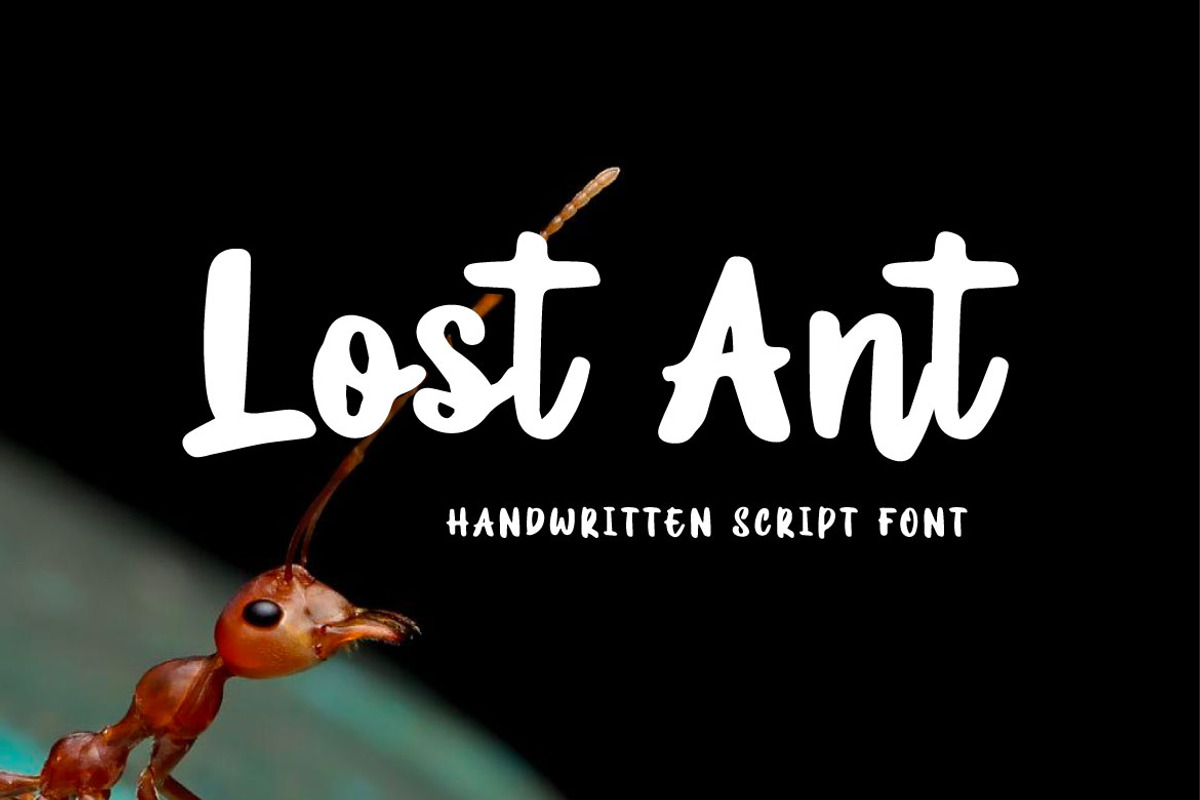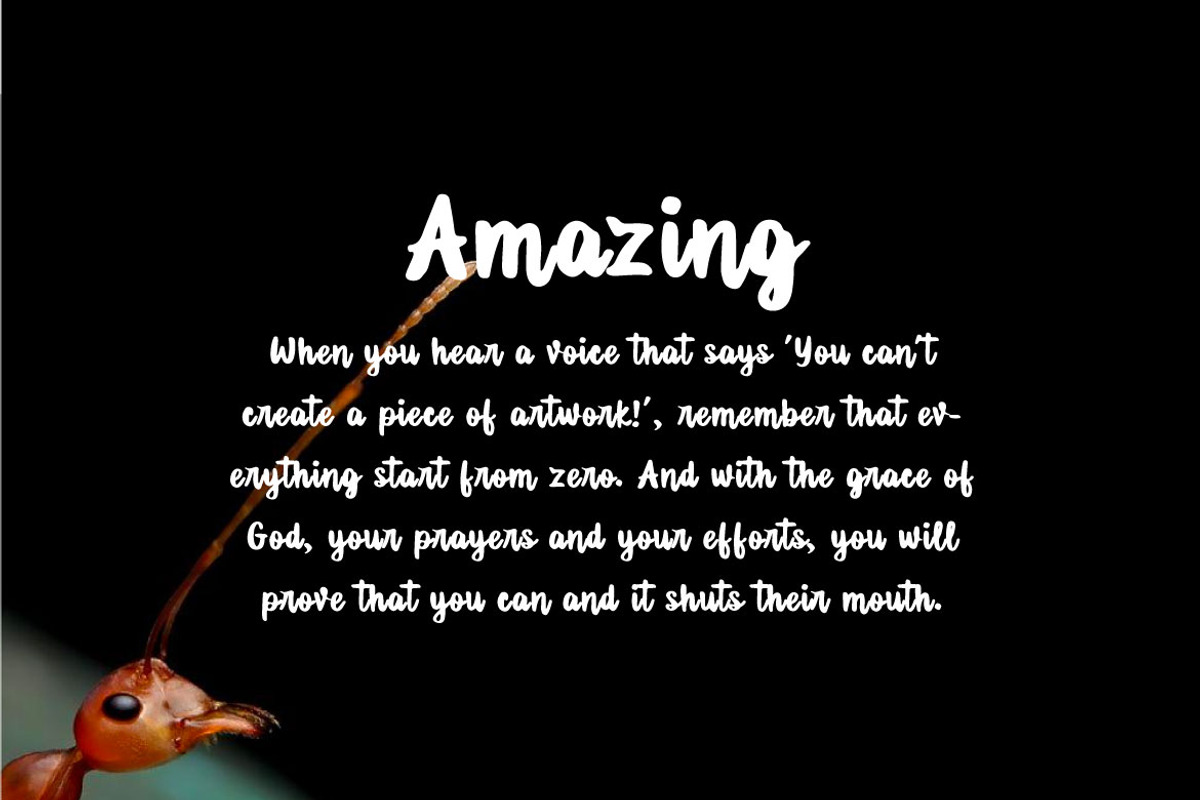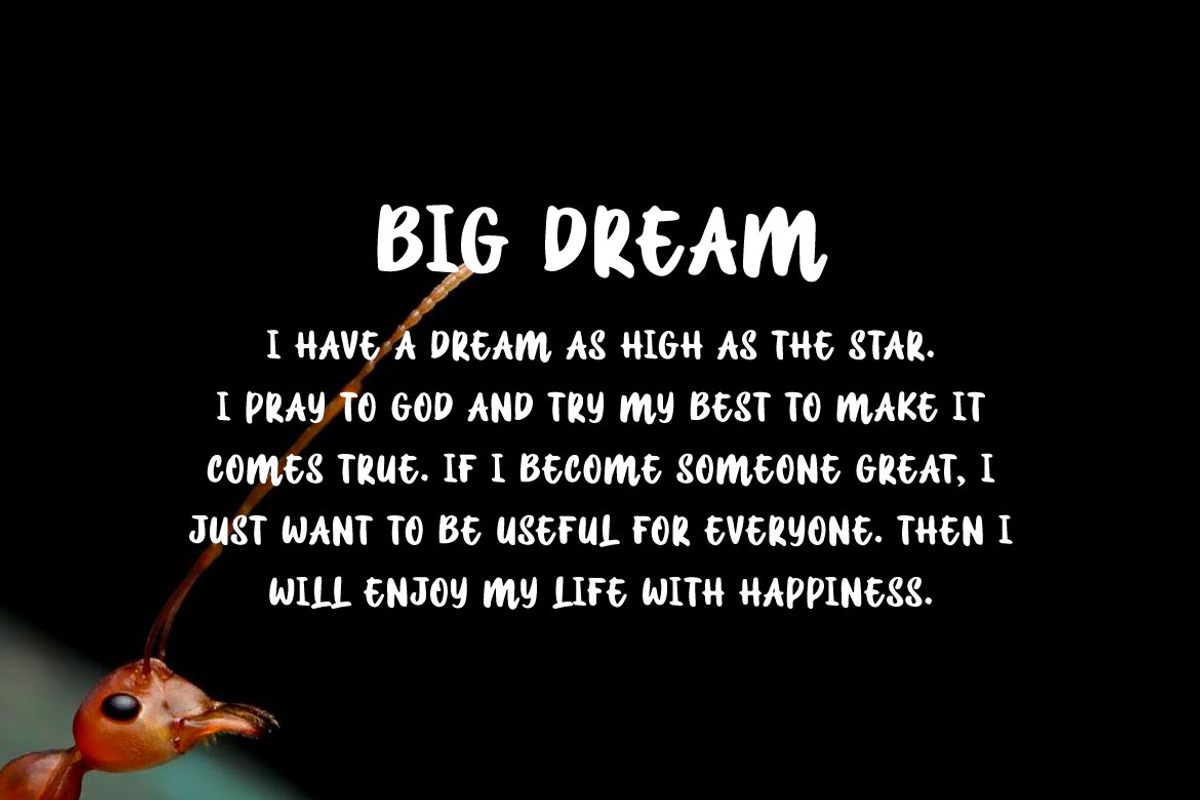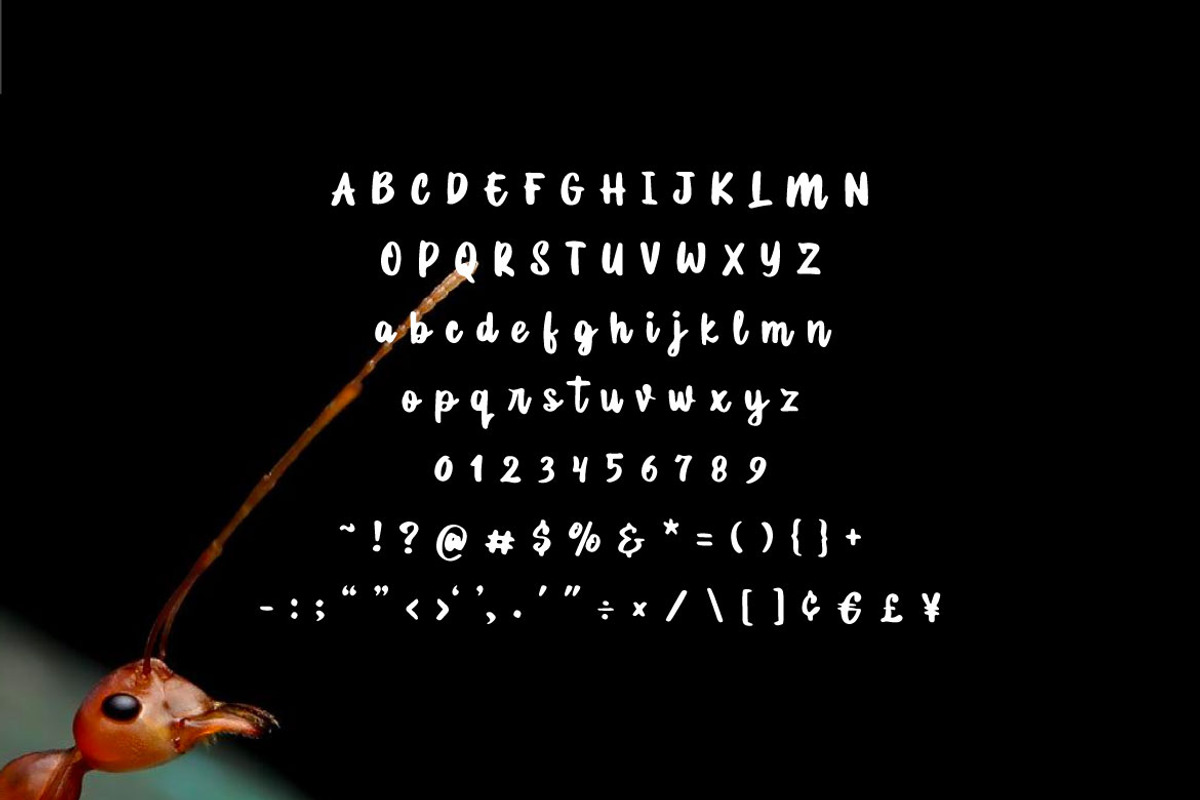
Lost Ant - Handwritten Script Font
Hello! Lost Ant is a handwritten script font. Lost Ant can be used in any works such as wedding invitation, book title, magazine logo and many more.